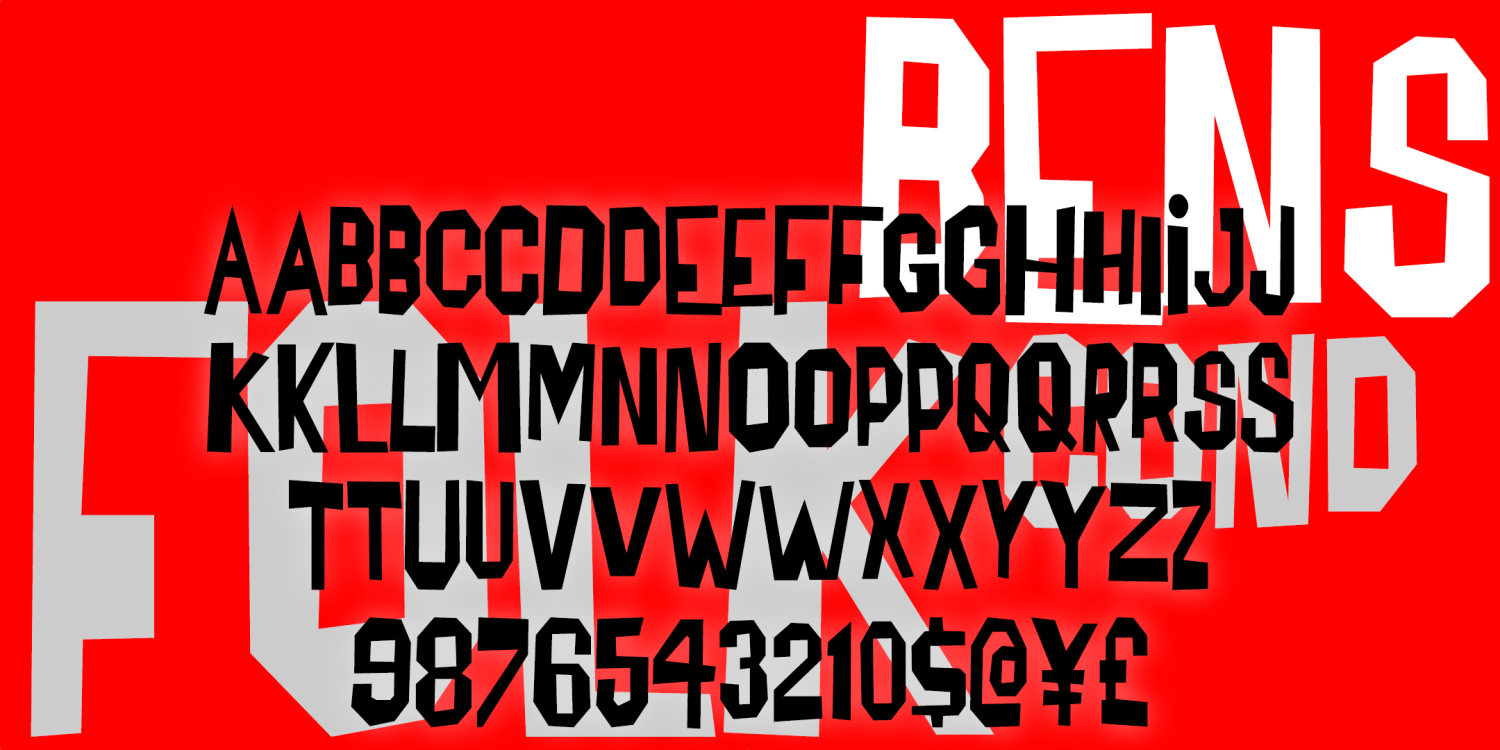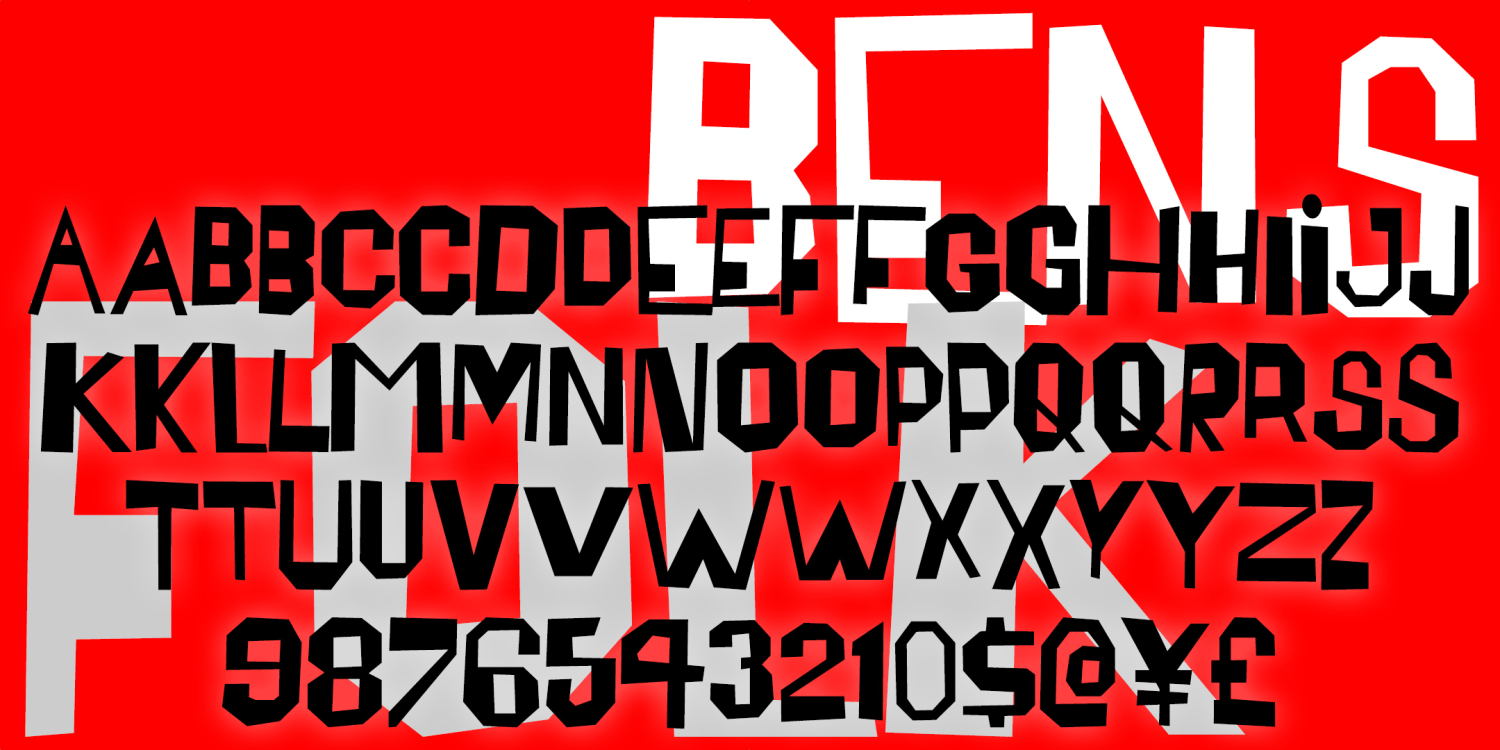
Bensfolk
About Bensfolk
The BENSFOLK fonts were inspired by the work of the artist Ben Shahn. He was a political activist, a painter, and a calligrapher, among many talents. One of the lettering styles Shahn used was derived from the work of amateur sign painters. As trained…